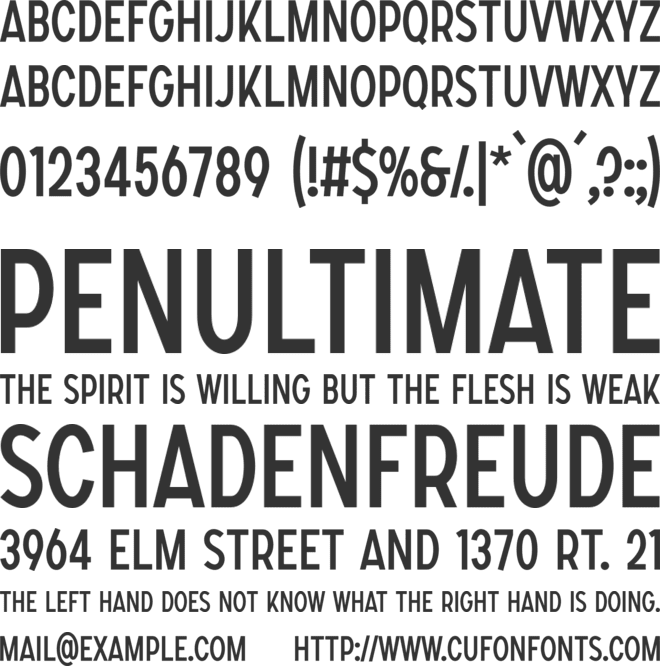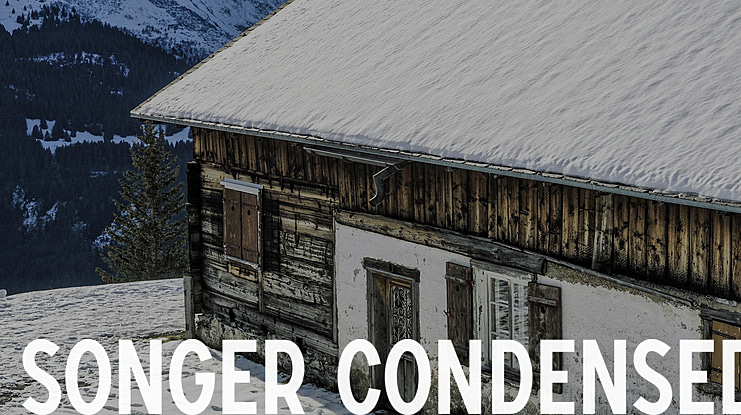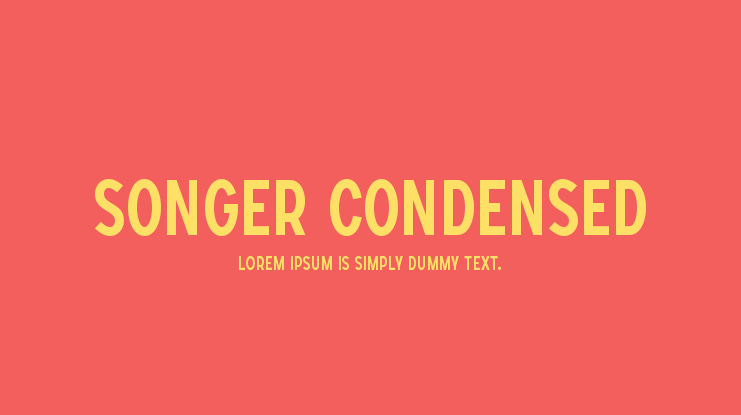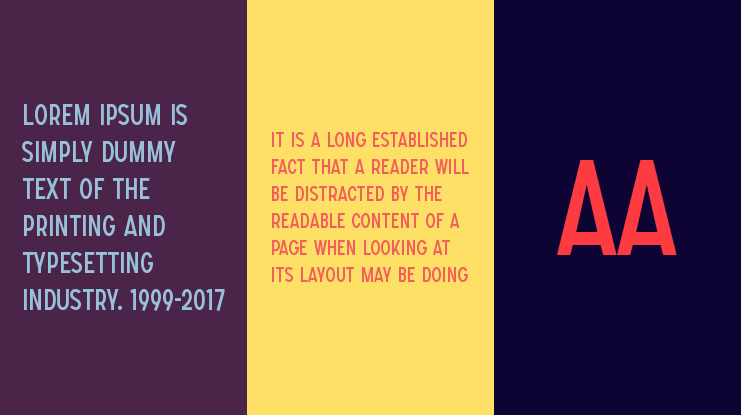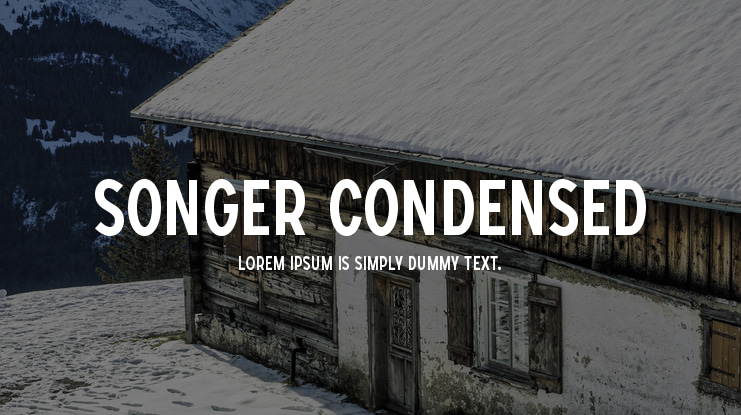
SONGER Condensed Font Family
SONGER Γ’ sans-serif font family supporting Greek & Cyrillic
OpenType Features: - Stylistic sets - Slashed zero - Bulgarian localization - Tabular symbols
Please use UPPER CASE for the best kerning result and don't forget to switch kerning to the Γ’opticalΓ’ when you use condensed and expanded letters in one text